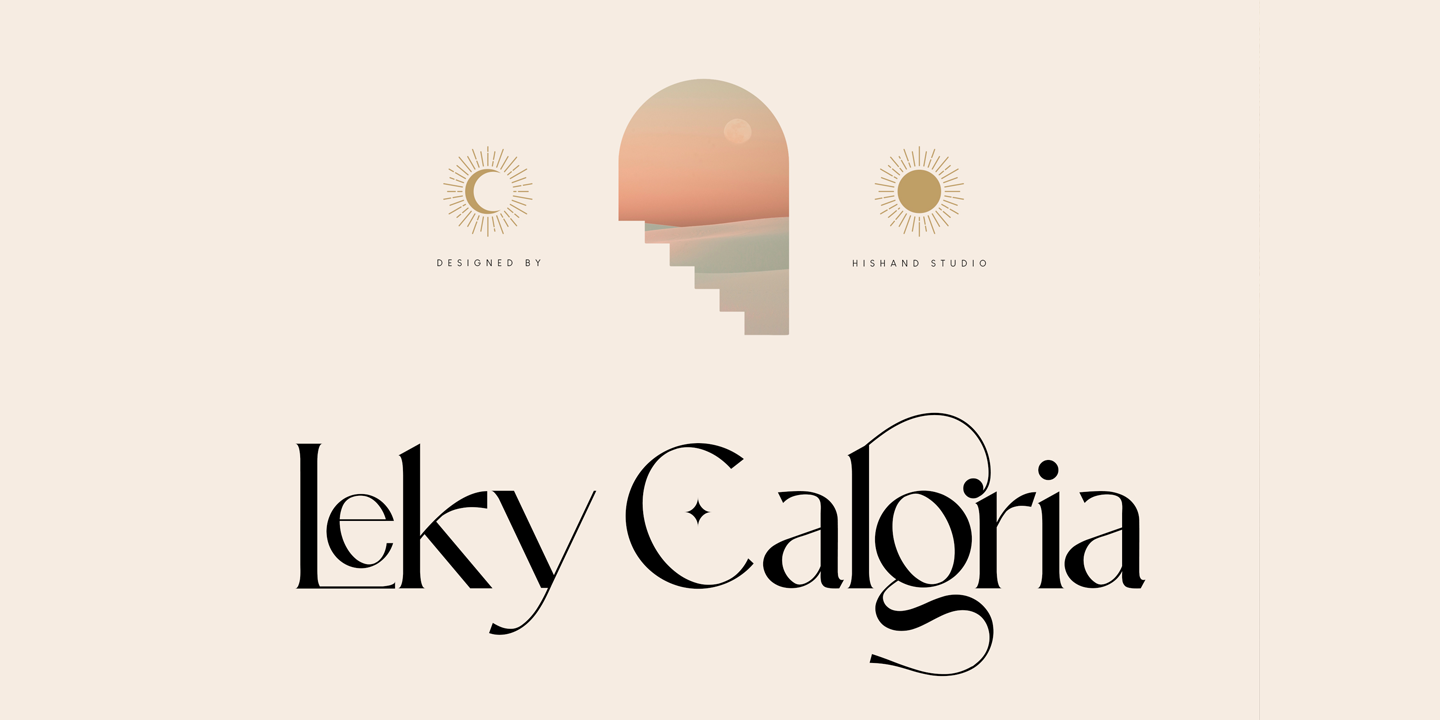
Leky Calgria Font showcases remarkable versatility across artistic design applications including creative logo design, artistic brand identity, expressive packaging solutions, gallery exhibition materials, art studio signage, creative portfolio layouts, artistic social media graphics, craft business communications, boutique marketing materials, contemporary web typography, cultural event promotions, and innovative advertising campaigns. This distinctive typeface brings unique character to both digital and print projects, making it perfect for artists and designers who need to convey creativity, originality, and artistic expression in their visual communications.
What makes Leky Calgria Font Free Download truly exciting is its perfect fusion of artistic expression with contemporary design functionality that creates an instantly memorable and distinctive visual identity. The font features uniquely crafted letterforms with creative proportions, artistic flourishes, and expressive character details that capture the essence of modern artistic movements while maintaining excellent readability across various applications. Its innovative aesthetic incorporates experimental design elements and optimized spacing that make it suitable for both professional artistic communications and creative personal projects. The font's artistic personality transforms standard content into visually compelling expressions that resonate with creative audiences seeking authentic and original design solutions.
The Leky Calgria Font family typically encompasses multiple stylistic variations including regular, bold, light, and potentially decorative versions, often featuring alternate characters, artistic elements, and creative ligatures that enhance its expressive appeal. Each style maintains the core artistic design philosophy while offering different levels of visual impact and creative expression. The comprehensive character set supports various languages and includes essential punctuation marks, numerals, and special symbols, ensuring designers have complete flexibility to create cohesive artistic typographic compositions that maintain visual consistency across diverse creative projects and international artistic markets.
Whether you're developing creative brand identity, designing artistic marketing materials, or creating expressive digital content, Leky Calgria Font Free Download provides the typographic creativity necessary for producing memorable and distinctive designs. Its artistic character and versatile nature make it an essential addition to any designer's font collection, offering unlimited creative possibilities while maintaining the highest standards of originality, visual appeal, and artistic authenticity in today's competitive creative design landscape.